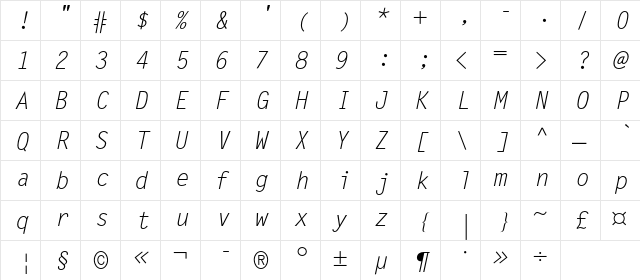
Metronom-Italic Regular
Design Context for Metronom-Italic Typeface
Metronom-Italic offers clean, dependable letterforms without strong stylistic allegiance, making it a practical choice for designers who need flexibility. The slanted form adds forward momentum and visual energy.
Pro Tip: Try Metronom-Italic for annotation and caption copy alongside an upright companion — the contrast in angle creates a dynamic but ordered typographic system.